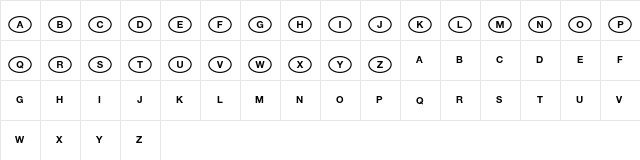
National Code Pi Std Universal
| Designer | Linotype Design Studio |
Design Context for National Code Pi Std Typeface
National Code Pi Std uses fixed-width spacing throughout, giving it the structured, systematic character associated with coding environments and technical documentation.